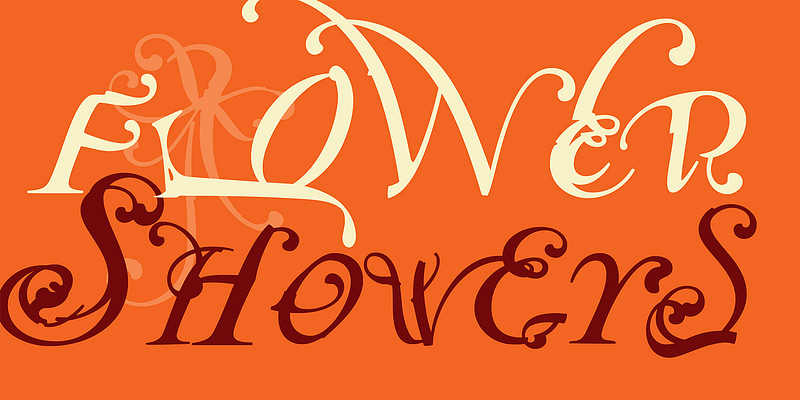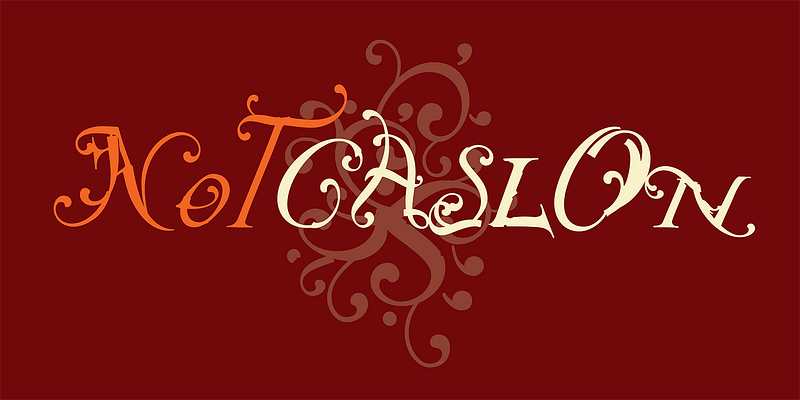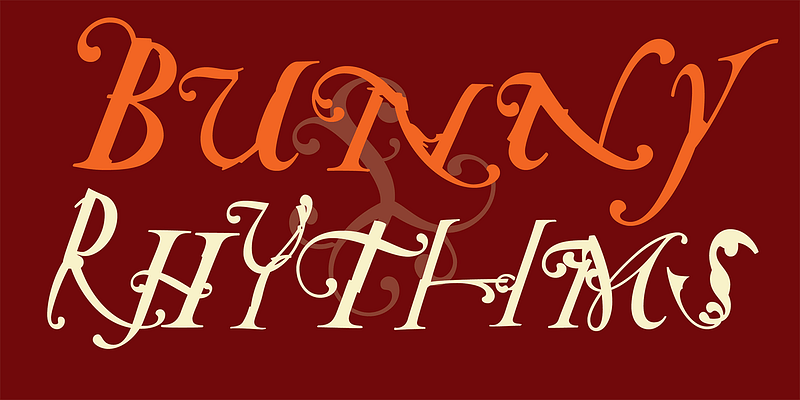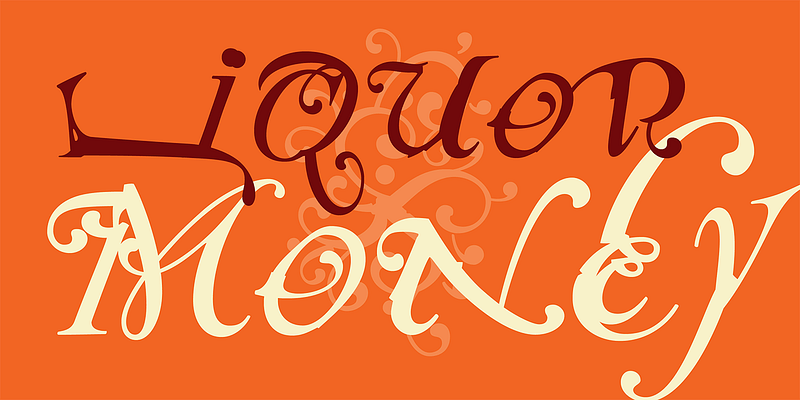
This collection of initials was created by illustrator Mark Andresen who rubbed down bits and pieces of dry transfer lettering: flakes, nicks, and all. It was digitized by Zuzana Licko.
The main influence for NotCaslon is New Orleans, with its 18th and 19th century French Quarter balconies, old cemetery crosses and Voudou veve designs. The peculiar swashes and inconsistent italic letterforms are all pieces of Caslon Swash Italic broken press type, rearranged and spontaneously formed.
Sign painter and typeface designer John Downer adds the following: “Not Caslon, as the name implies, is surely one of the most comical and exuberant works of alphabet art that owes any (in this case, literally every) part of its being to swashy, 20th-century American, Caslon-inspired italics. It seems most unlikely that this collection will be able to float alone, but it may find a place next to numerous time-tested typefaces, if for no reason other than its outstanding entertainment value. Several interesting touches, whether included by accident or design, make for great amusement: wrong font letters like a monoline L and x, a bold weight F, a ‘shoelace’ X, miscellaneous lower case letters throughout, and even a flopped roman A (with modifications). What eighteenth-century printer’s job case would be complete without a share of unexpected typographic variety?